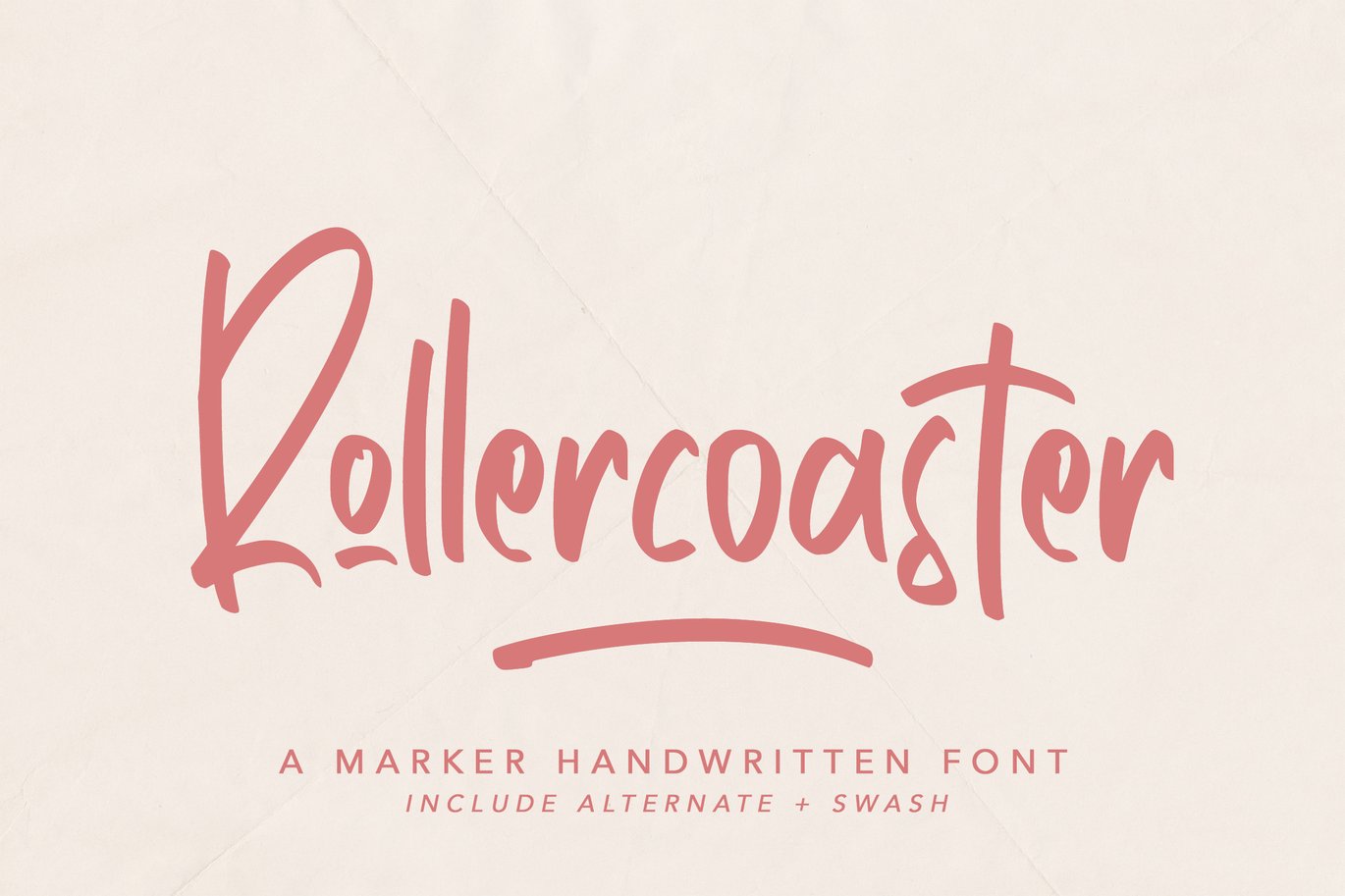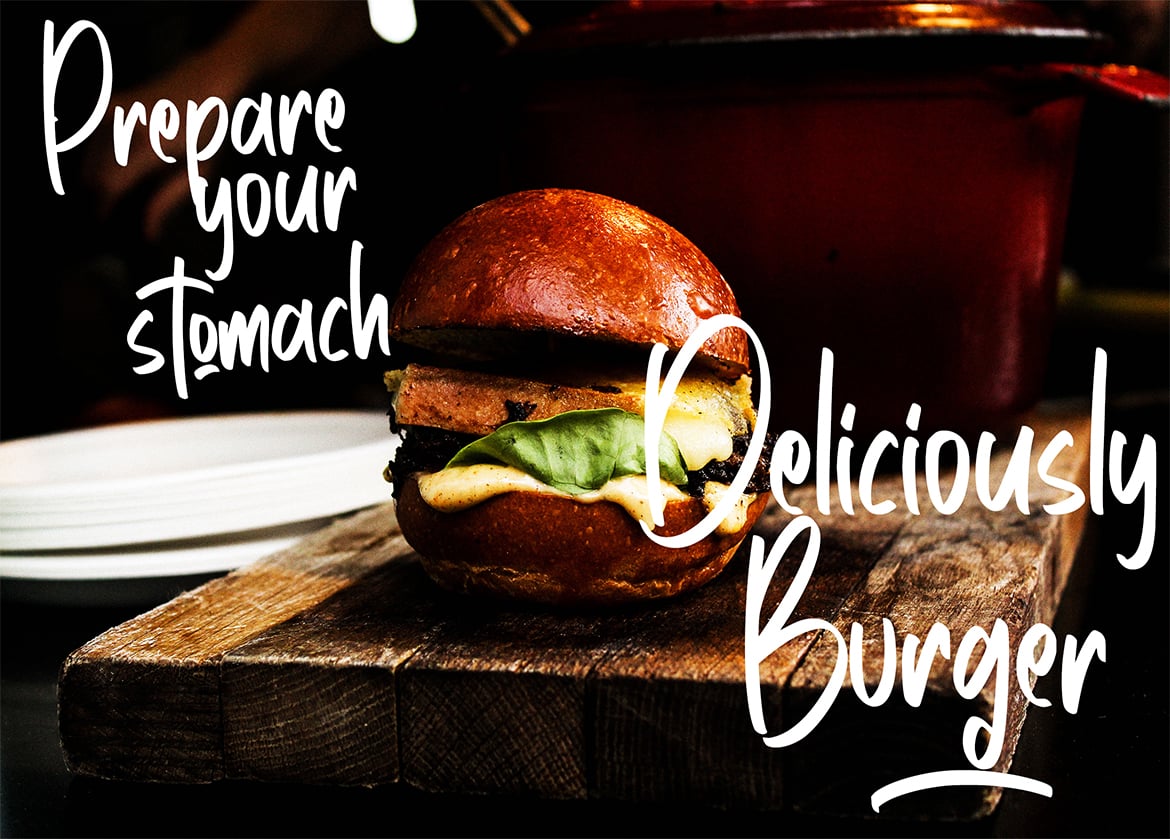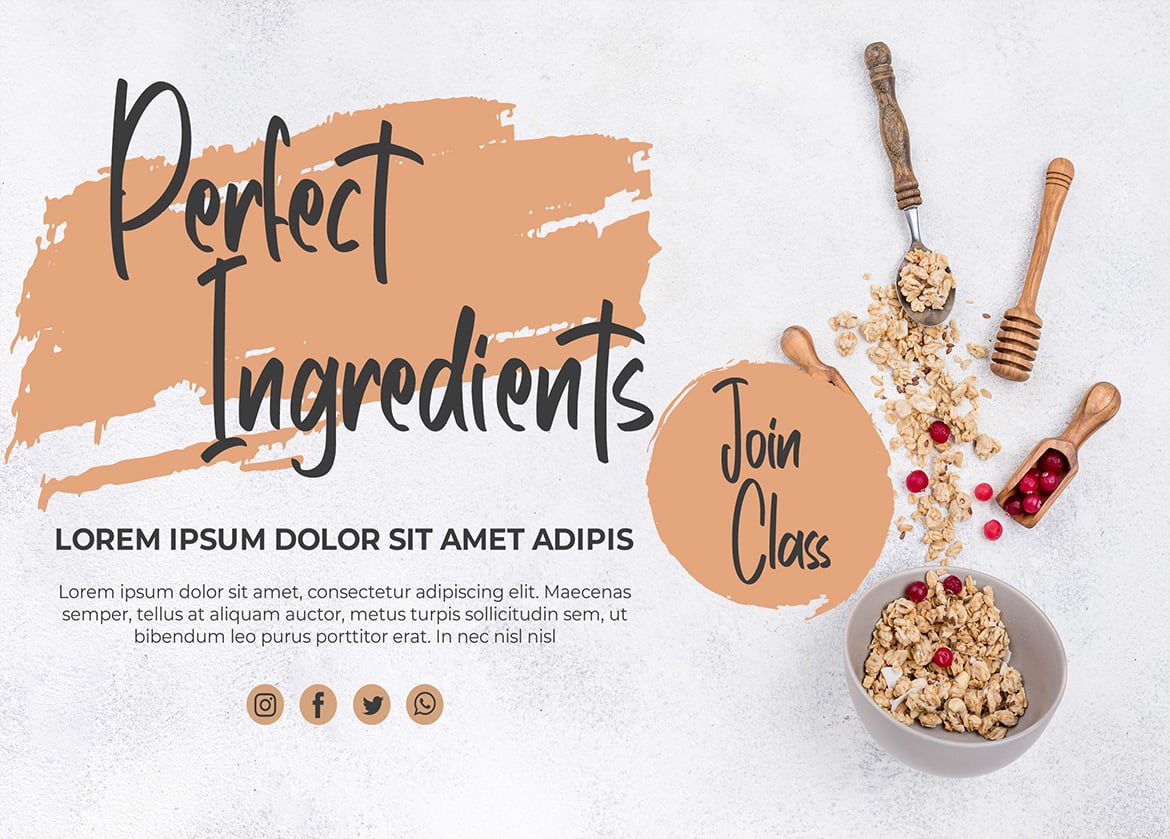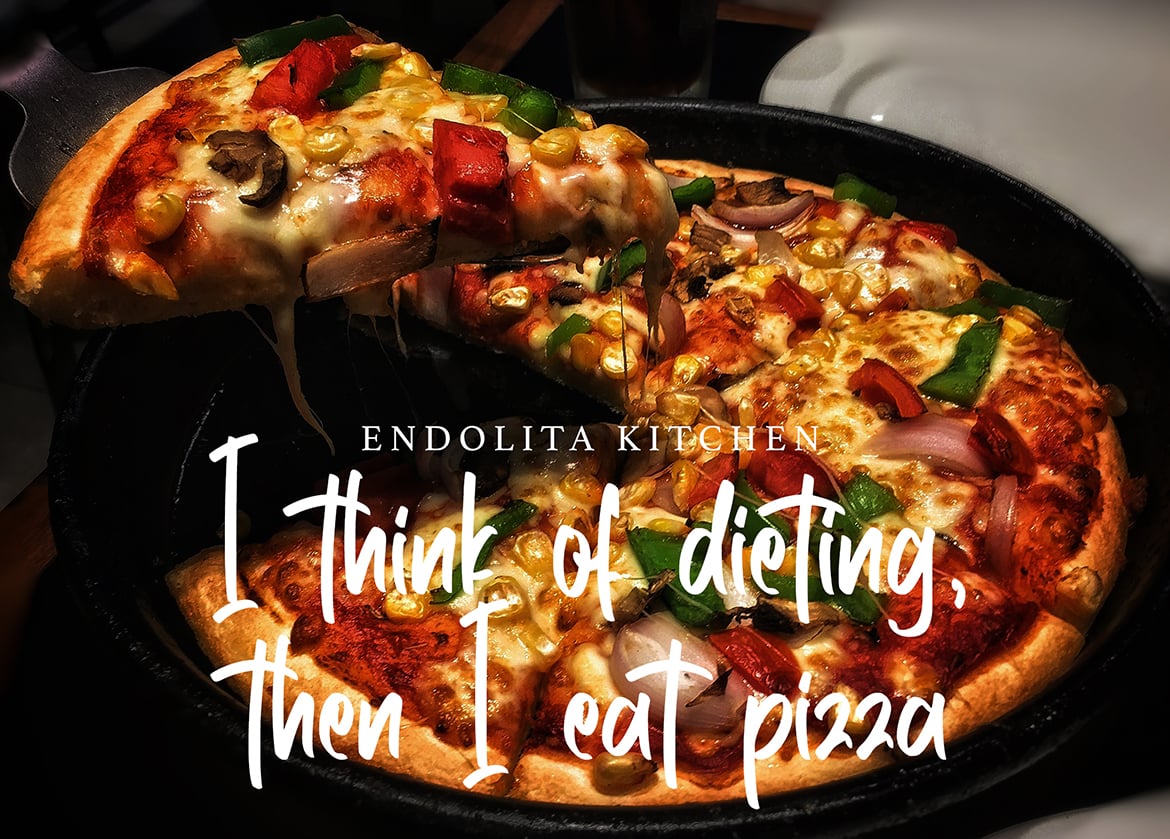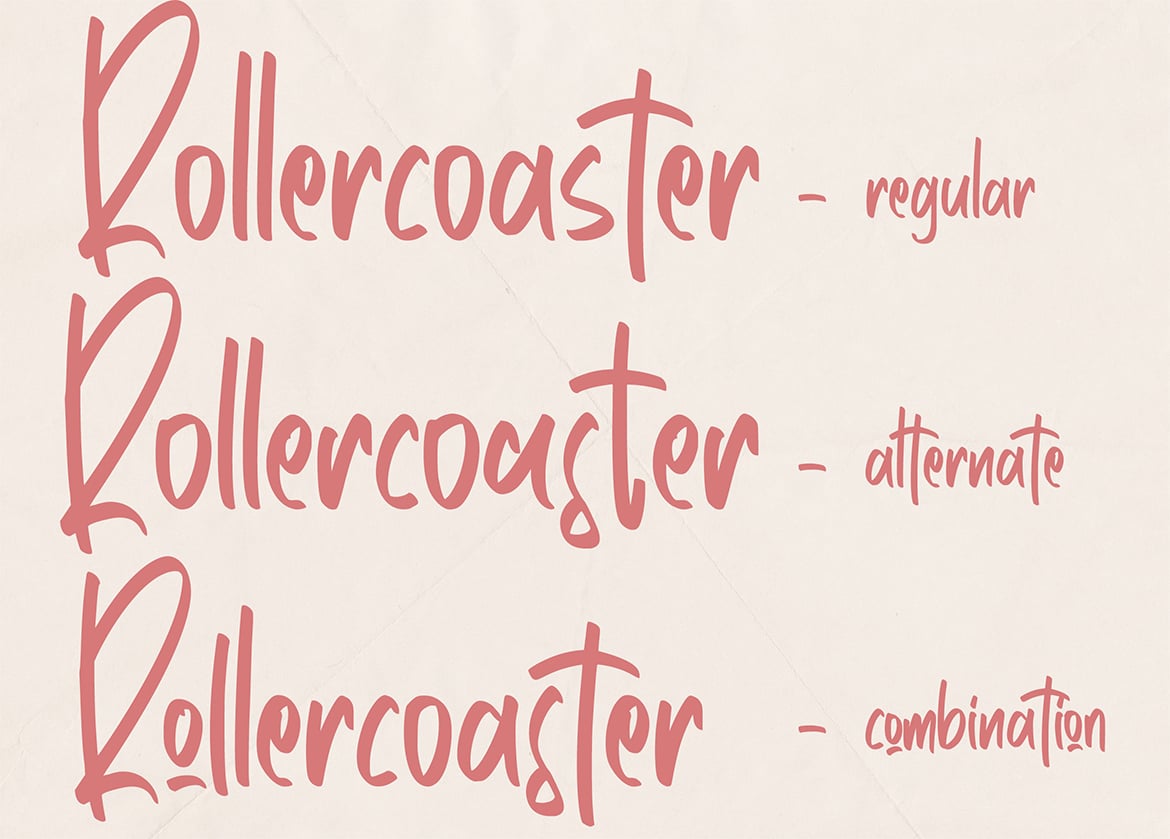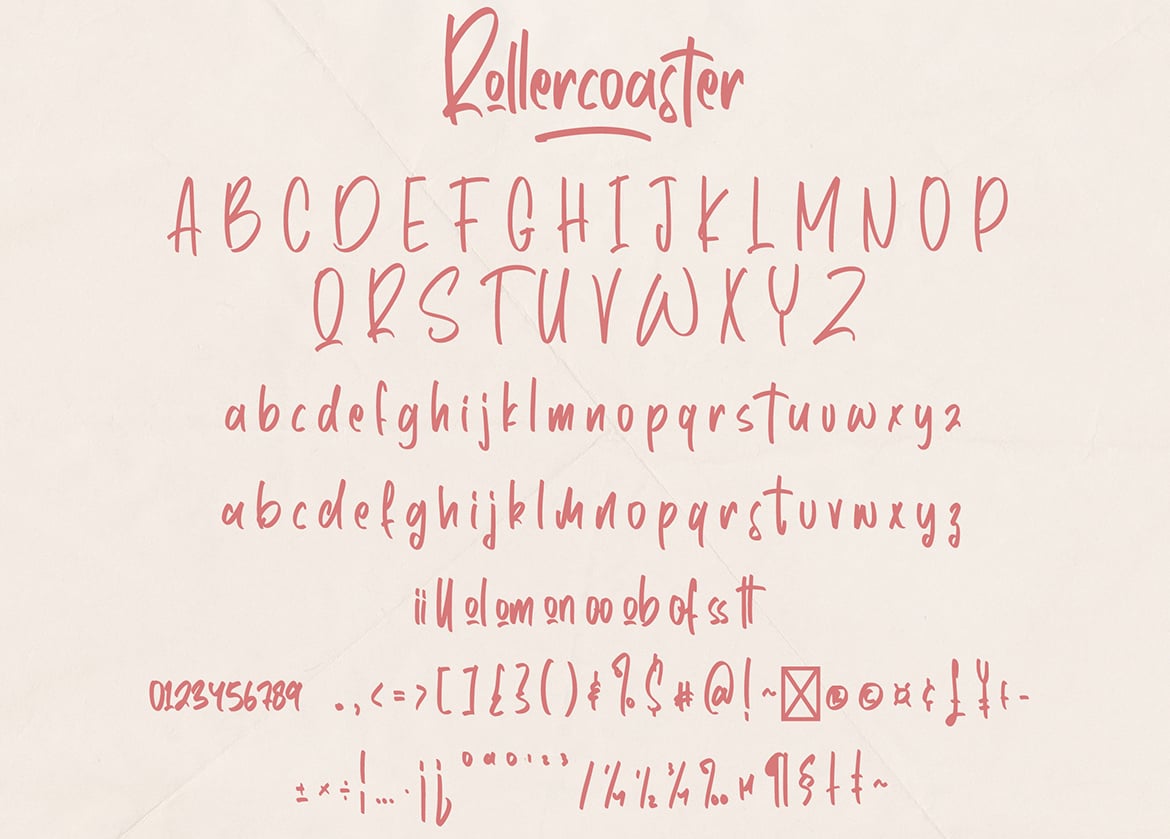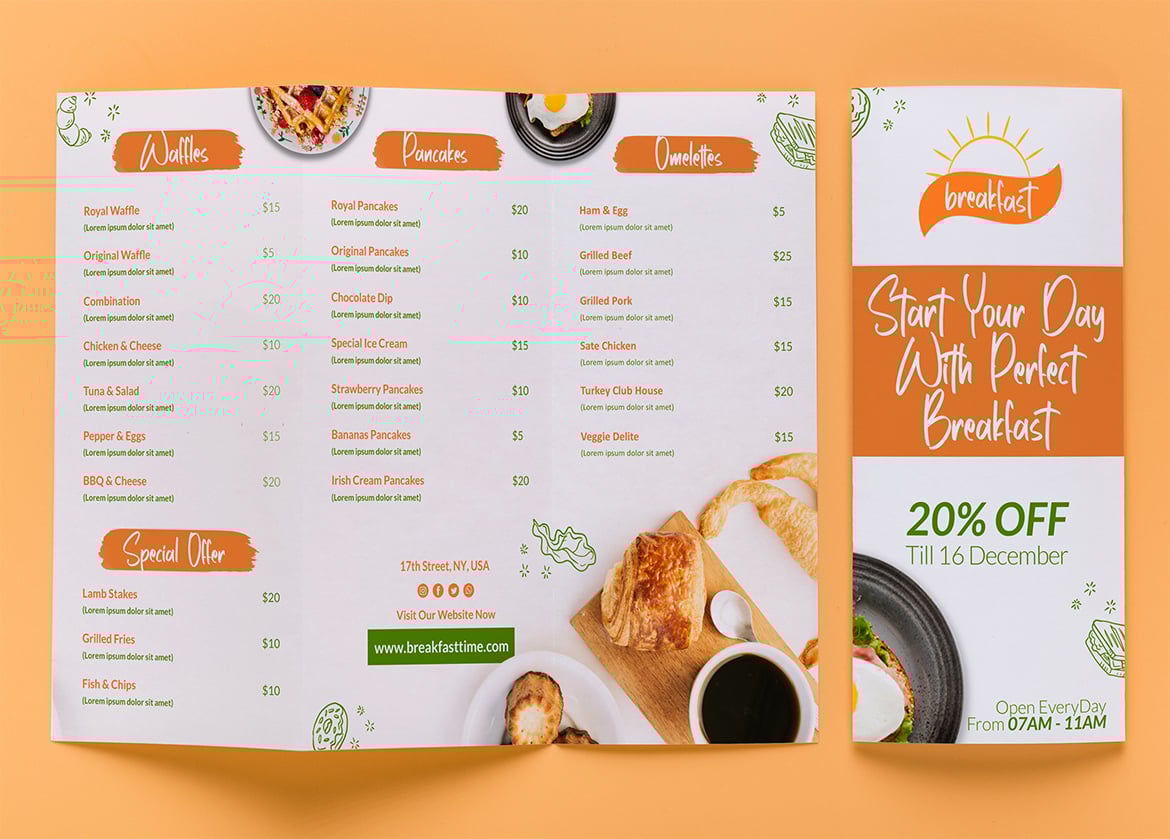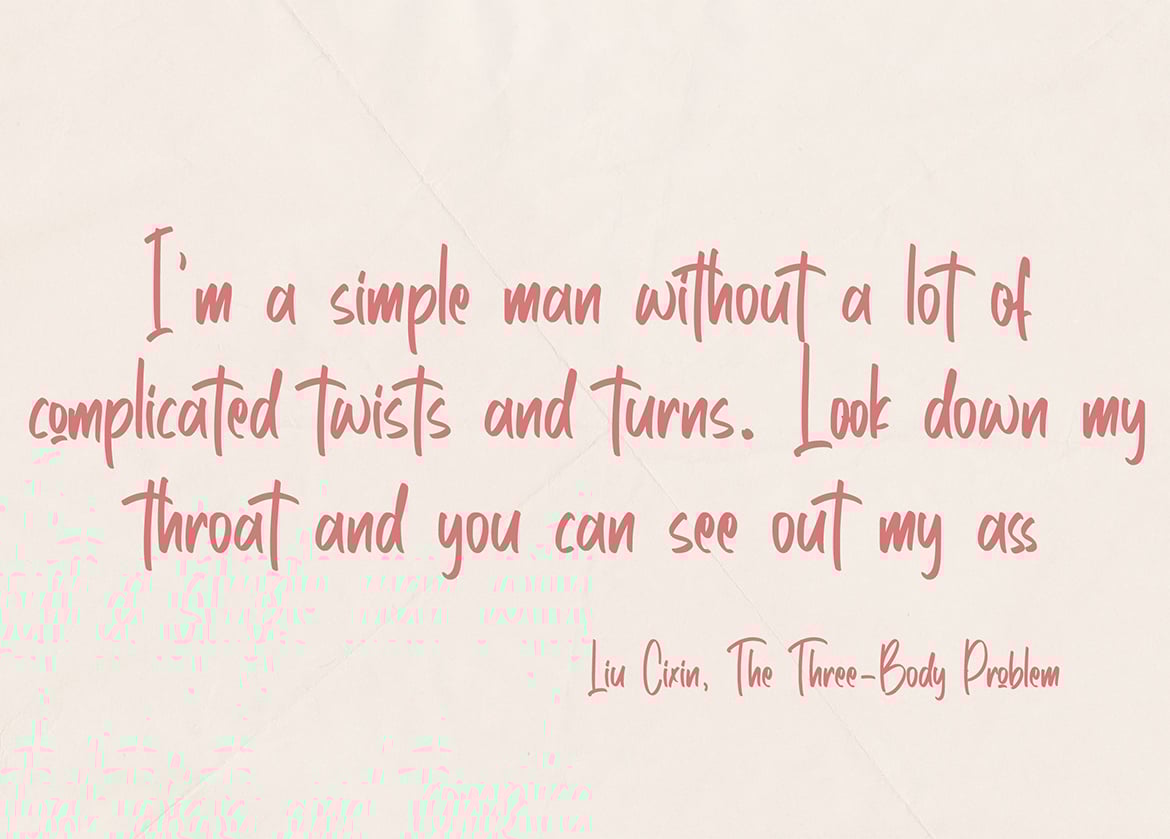
Rollercoaster – Marker Font
Rollercoaster is Handwritten marker font that looks neat and nice to look at, so it will be suitable to use for your design projects
Rollercoaster came with opentype features such stylistic alternates, stylistic sets & ligatures good for logotype, poster, badge, book cover, tshirt design, packaging and any more.
Features : • Character Set A-Z • Numerals & Punctuations (OpenType Standard) • Accents (Multilingual characters) • Ligature • Alternate